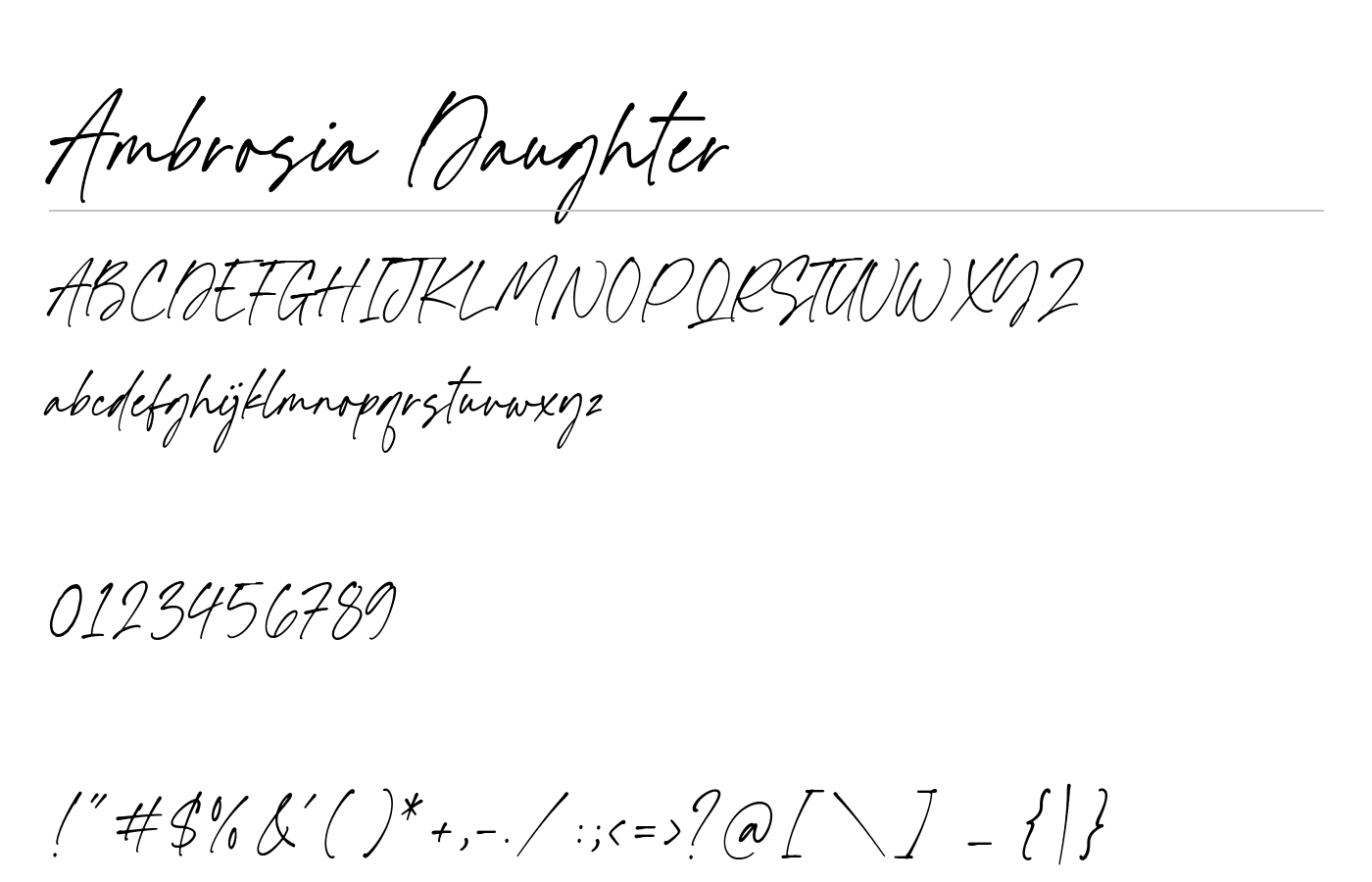
Ambrosia Daughter is a delicate, handwritten script font with a natural, flowing style that feels personal and charming. Its thin, slightly irregular strokes create an elegant yet approachable look, perfect for adding a touch of warmth and authenticity to branding, invitations, and creative projects. This font works beautifully for designs that seek a casual, artistic feel with a modern, feminine edge.
Ambrosia Daughter Font
About Ambrosia Daughter Font